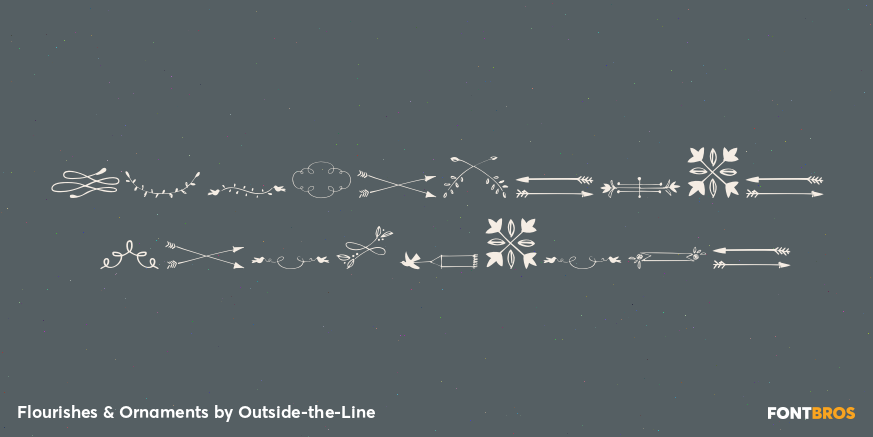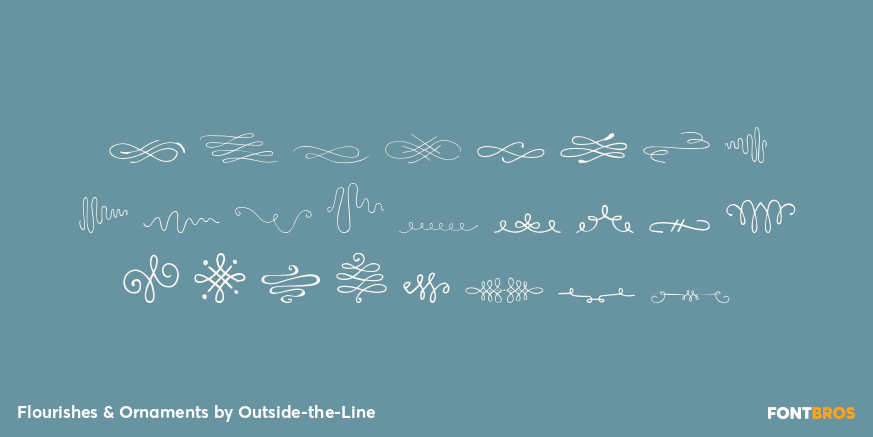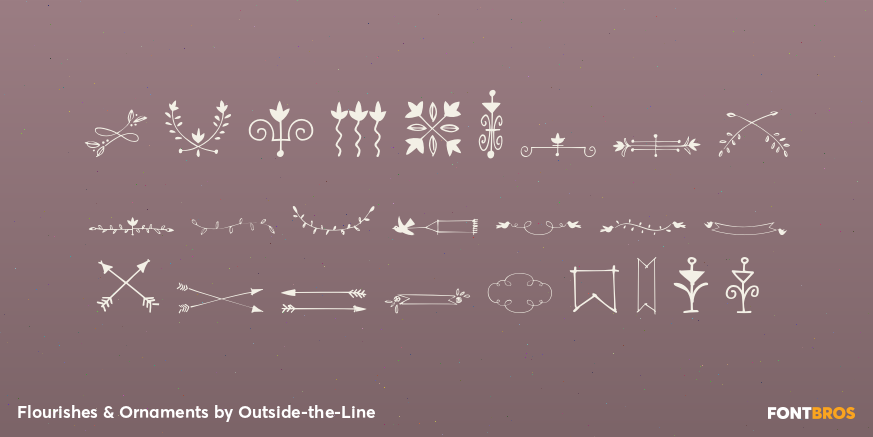
Flourishes & Ornaments
Font Family by Outside-the-Line
50 hand-drawn fresh, contemporary flourishes and ornaments that work with all Outside the Line alphabet and doodle fonts. Add a bit of pretty adornment to cards, invitations and gift tags.